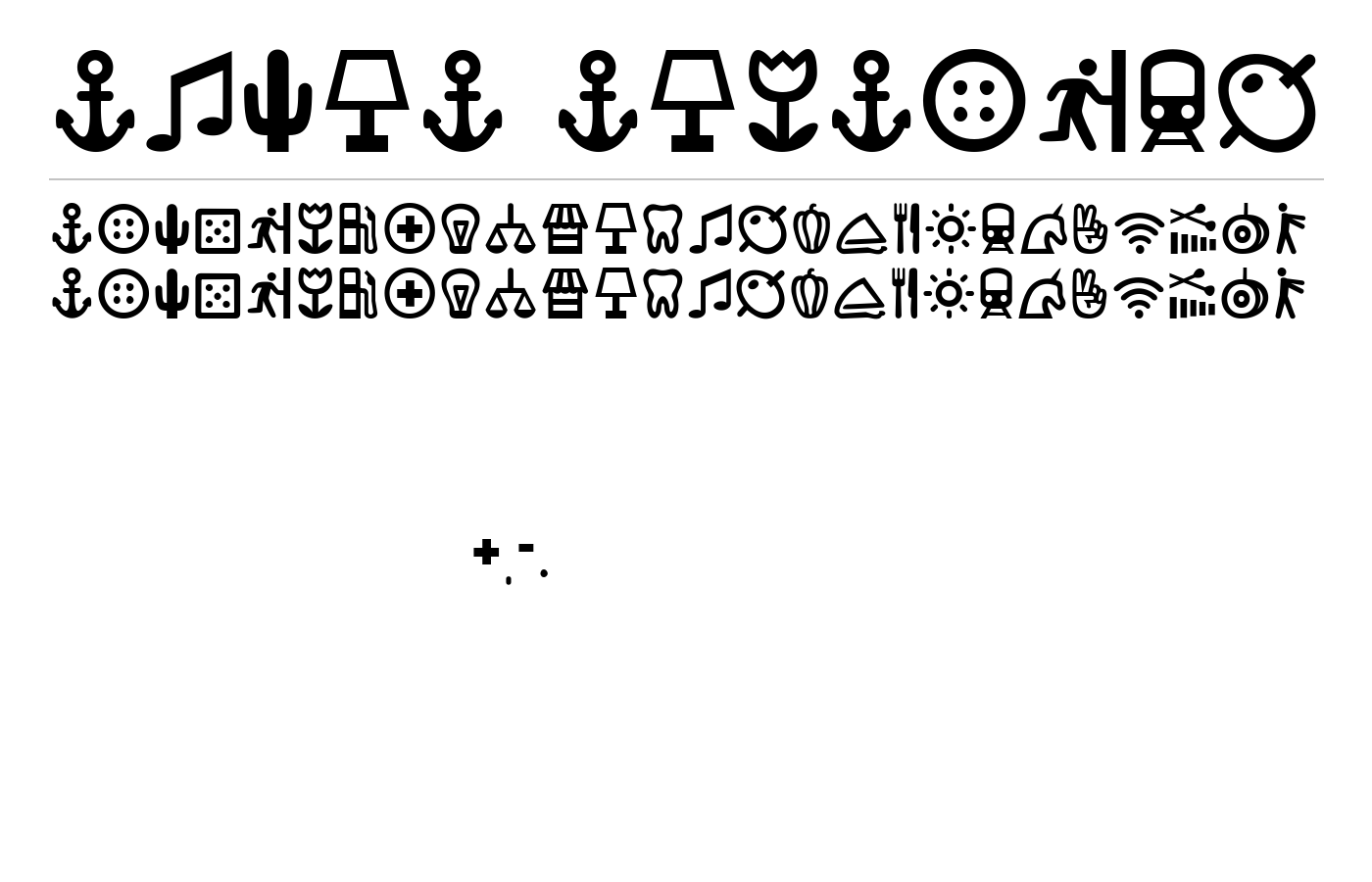
Ancla Font is a playful and bold symbol typeface featuring a clean, geometric style with uniform stroke weight and rounded edges. Its icons are simple yet distinctive, making it ideal for use in signage, apps, and wayfinding systems where clarity and friendly appeal are key. This font works well in modern digital contexts or branding that demands easy visual communication through recognizable pictograms.
Ancla Font
About Ancla Font